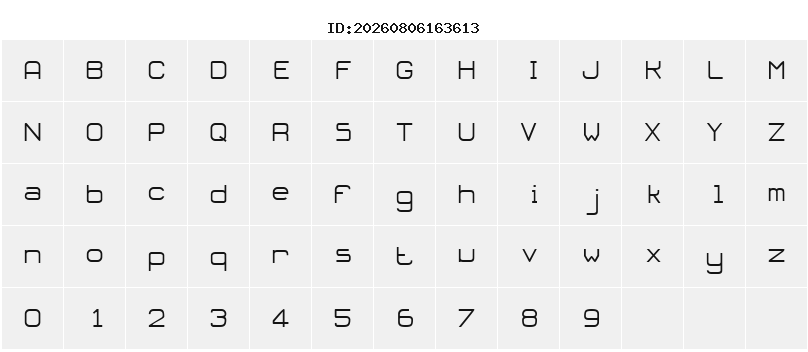
Oloron Tryout.ttf is a modern, elegant sans-serif font designed for ultimate readability and visual harmony. Perfect for branding, headlines, web design, and print materials.